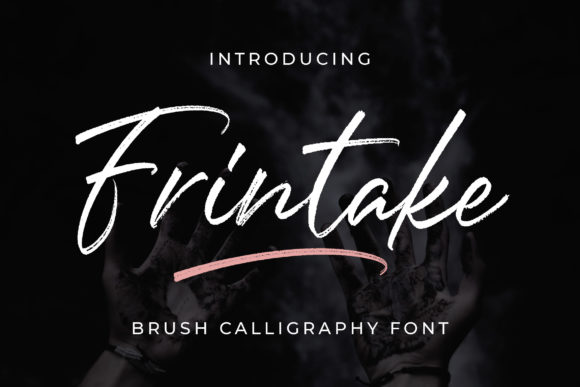
Frintake Font
Introducing Frintake Font, the captivating brush calligraphy font that brings your creative visions to life! Escape the mundane and embrace the extraordinary with Frintake's enchanting strokes, crafted by the renowned Blankids Studio. Indulge in the beauty of exquisite logos, signatures, branding, and any crafting project imaginable.
Frintake's elegant curves and playful flourishes ignite inspiration, propelling your designs to dizzying heights. Immerse yourself in the world of boundless creativity as Frintake transforms your words into mesmerizing works of art. With Frintake, you hold the key to unlocking captivating designs that resonate with your audience and leave an indelible mark on their hearts.
Unleash your inner artist and explore the limitless possibilities that Frintake presents. Experience the joy of crafting logos that exude sophistication and timeless charm. Design signatures that ooze personality and authenticity. Elevate your branding with Frintake's distinctive touch, creating a cohesive and memorable identity for your business.
Frintake breathes life into your crafting projects, adding a touch of whimsy and elegance. Create handmade cards that convey heartfelt messages, scrapbook pages that capture precious memories, and personalized gifts that touch the soul. Frintake's allure extends far beyond the digital realm, inviting you to explore the tangible beauty of physical creations.
Join the creative revolution and let Frintake guide you toward design excellence. Embrace the allure of brush calligraphy and watch as your projects blossom into masterpieces. Frintake is more than just a font; it's an invitation to embark on an artistic journey where creativity reigns supreme.